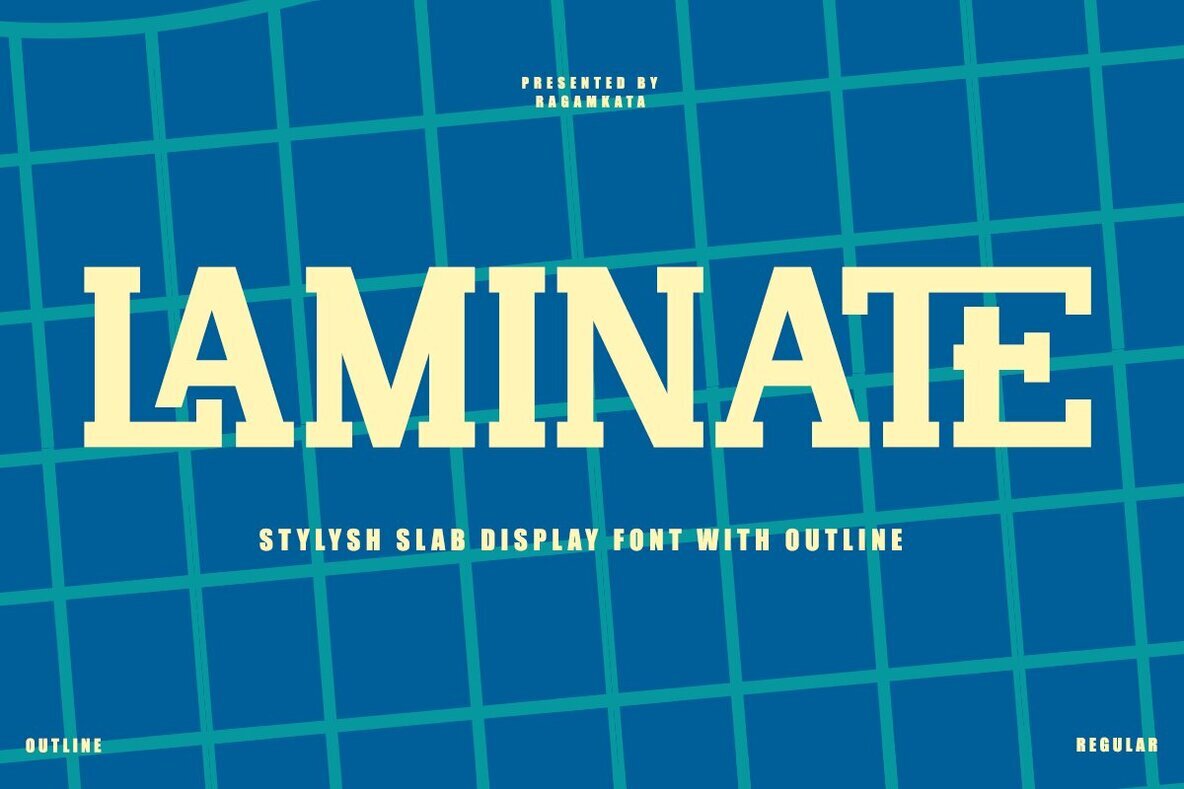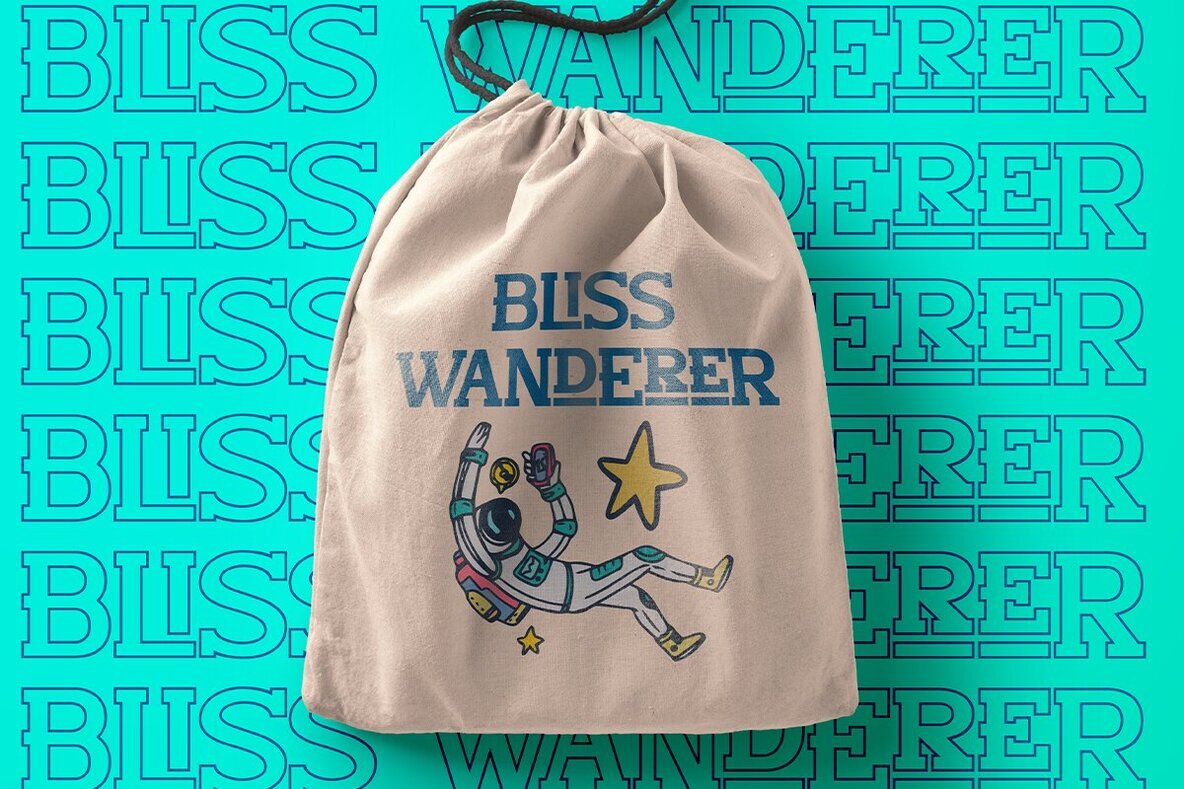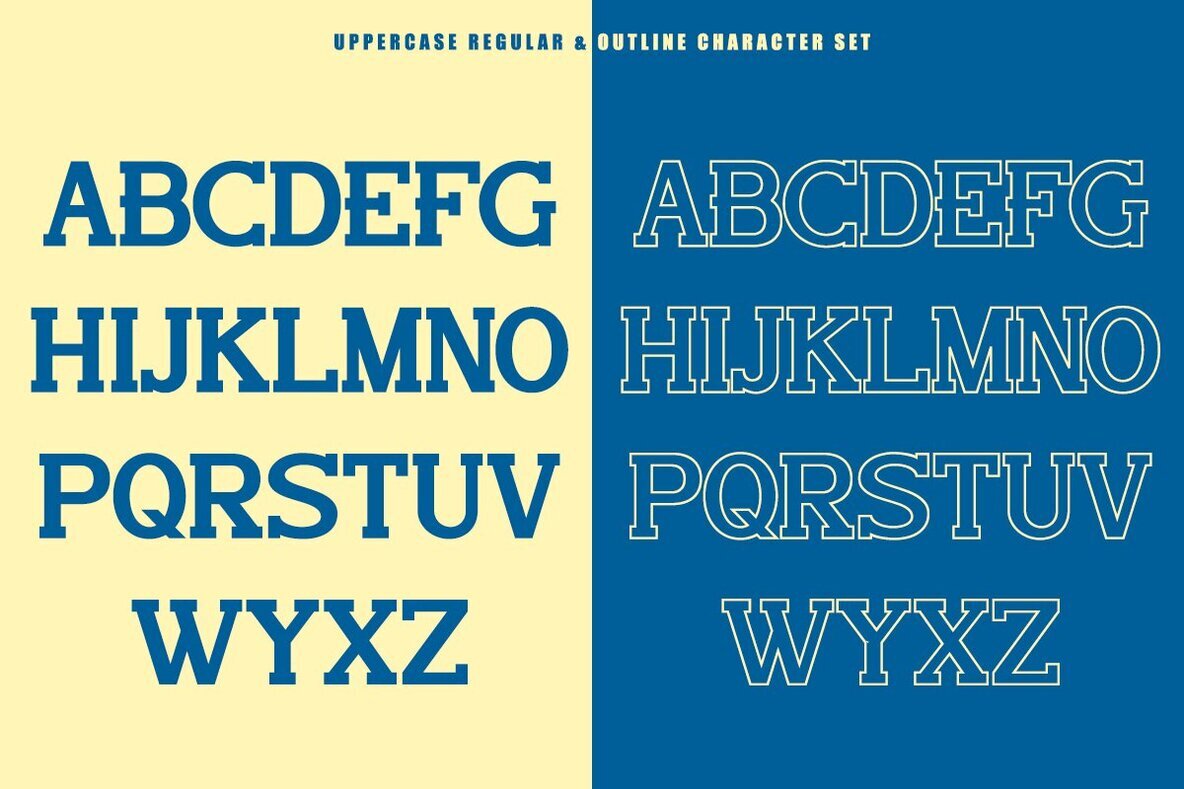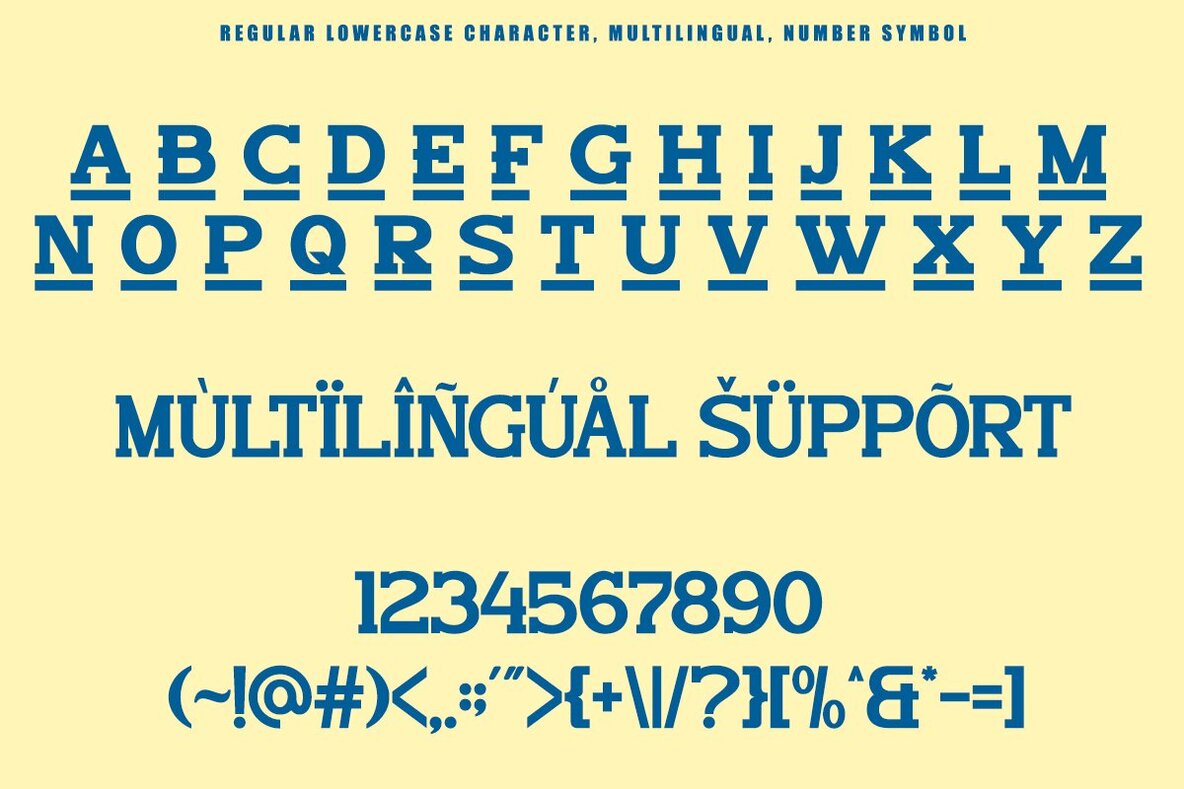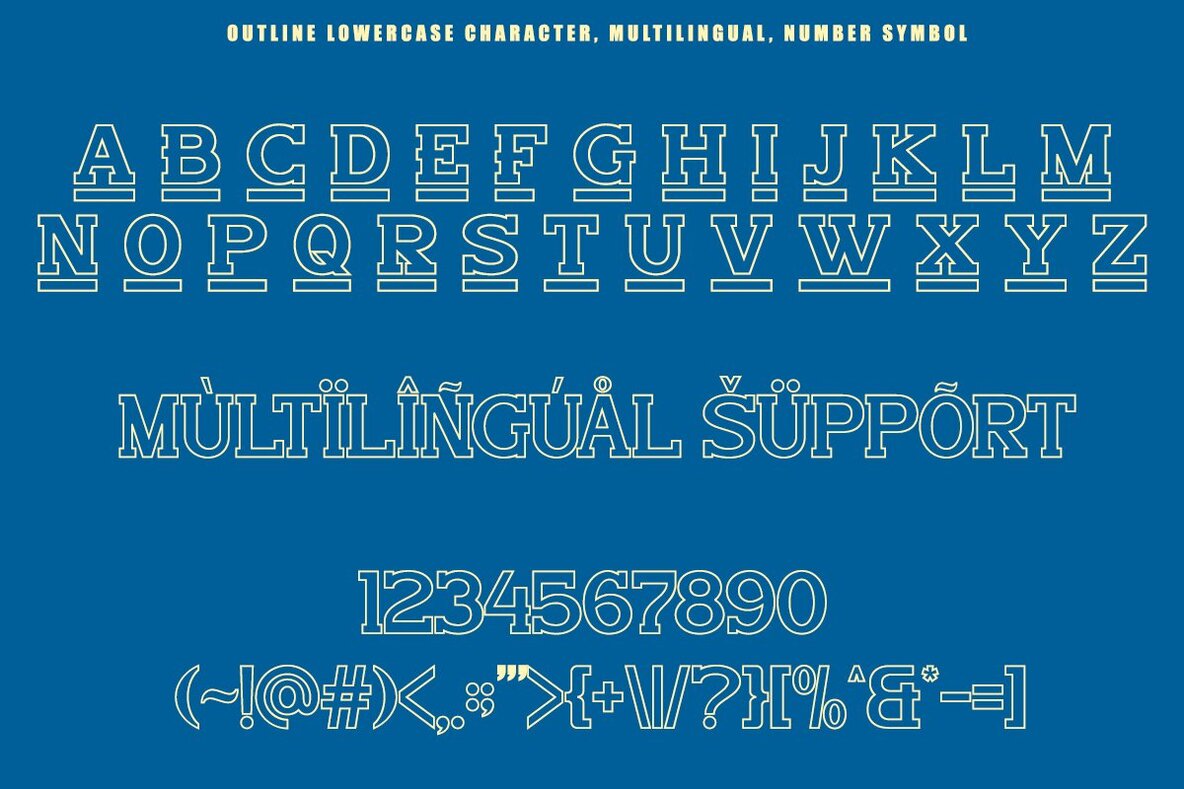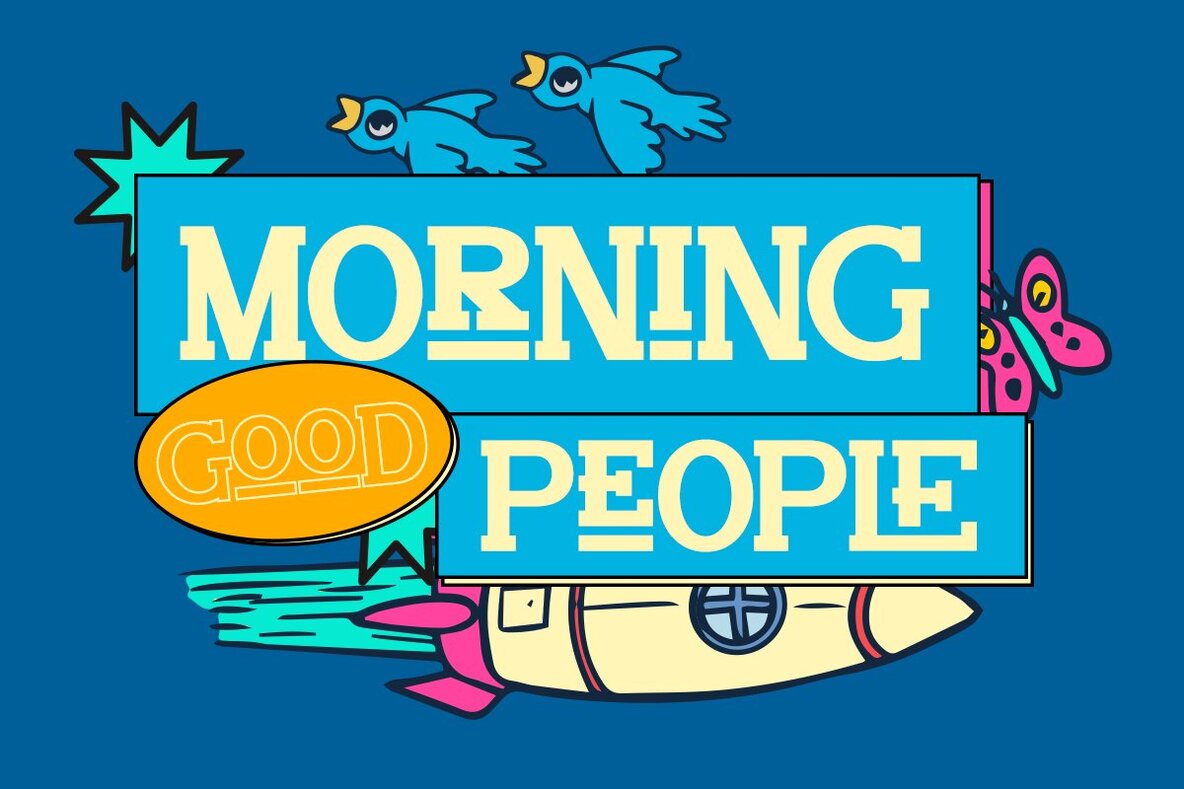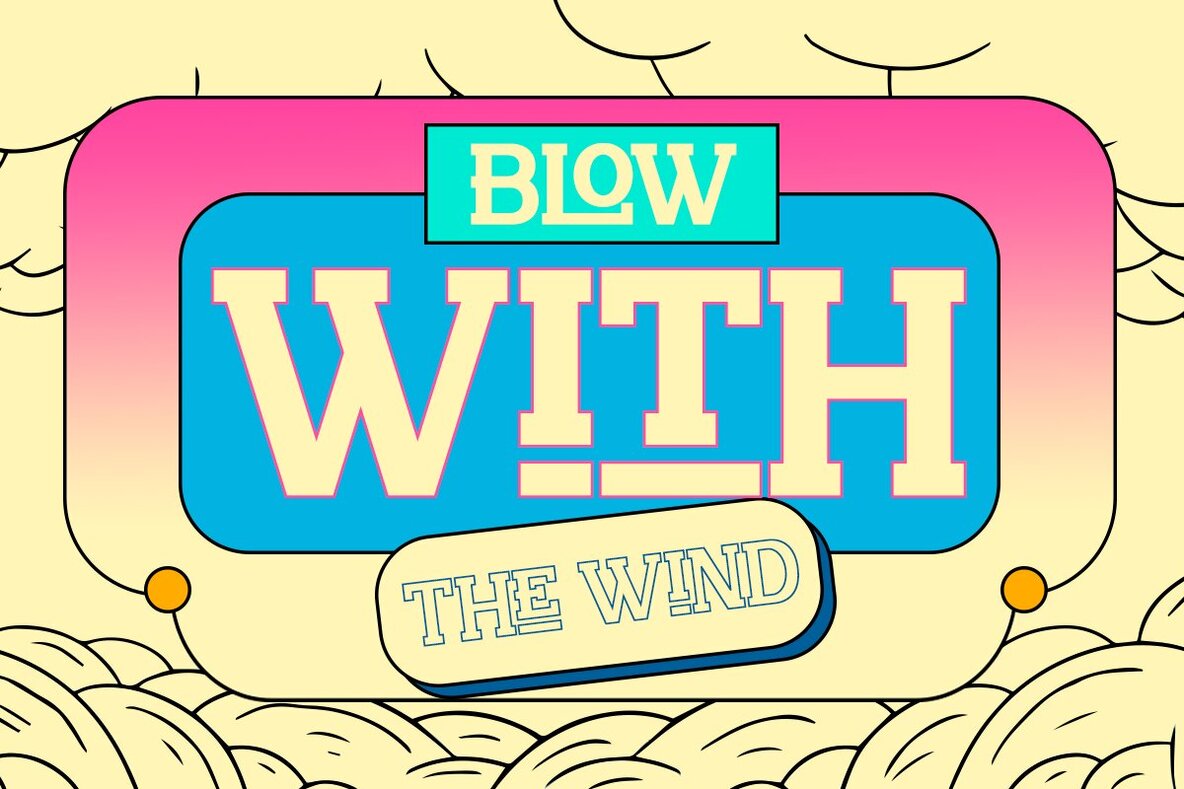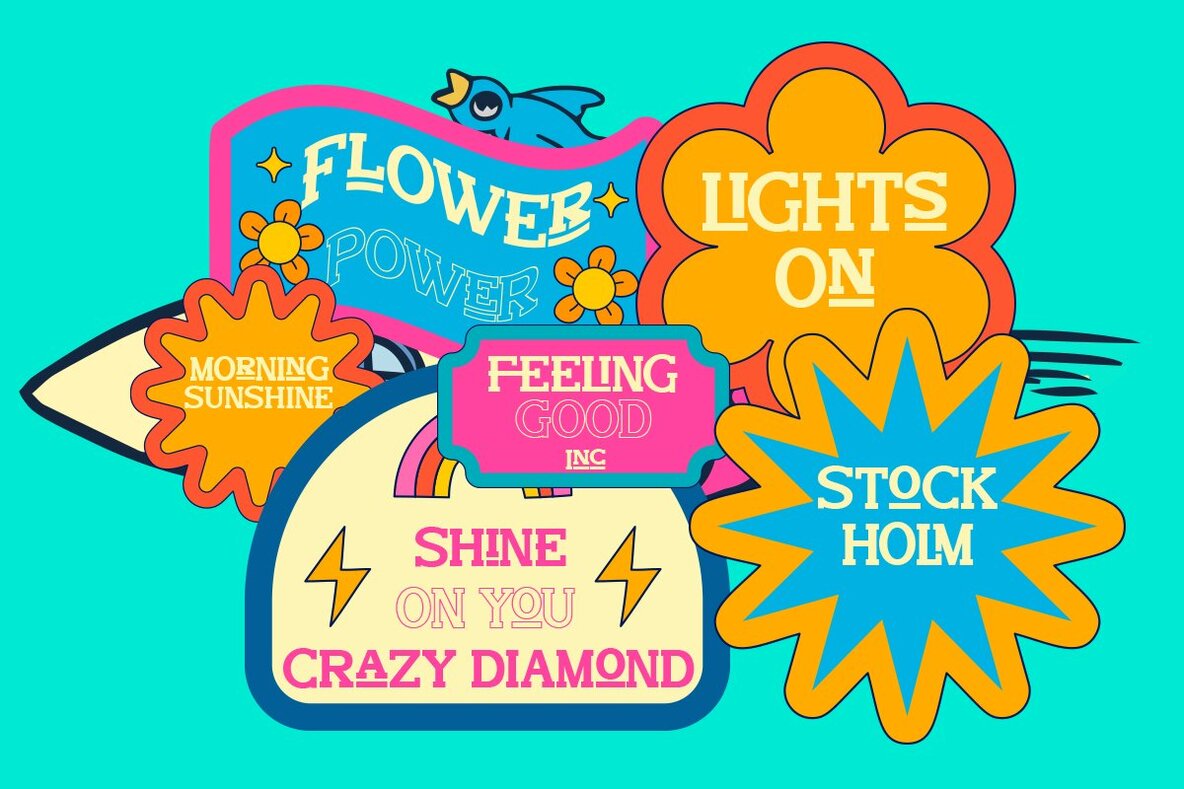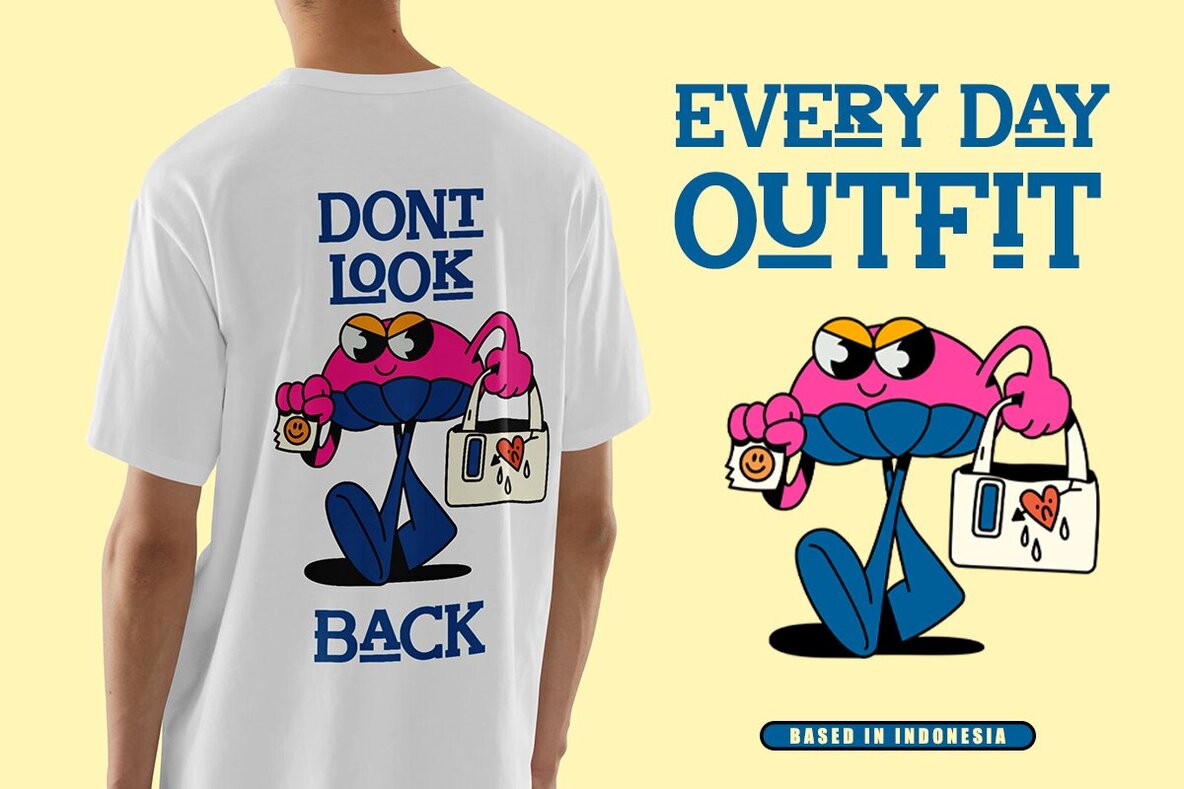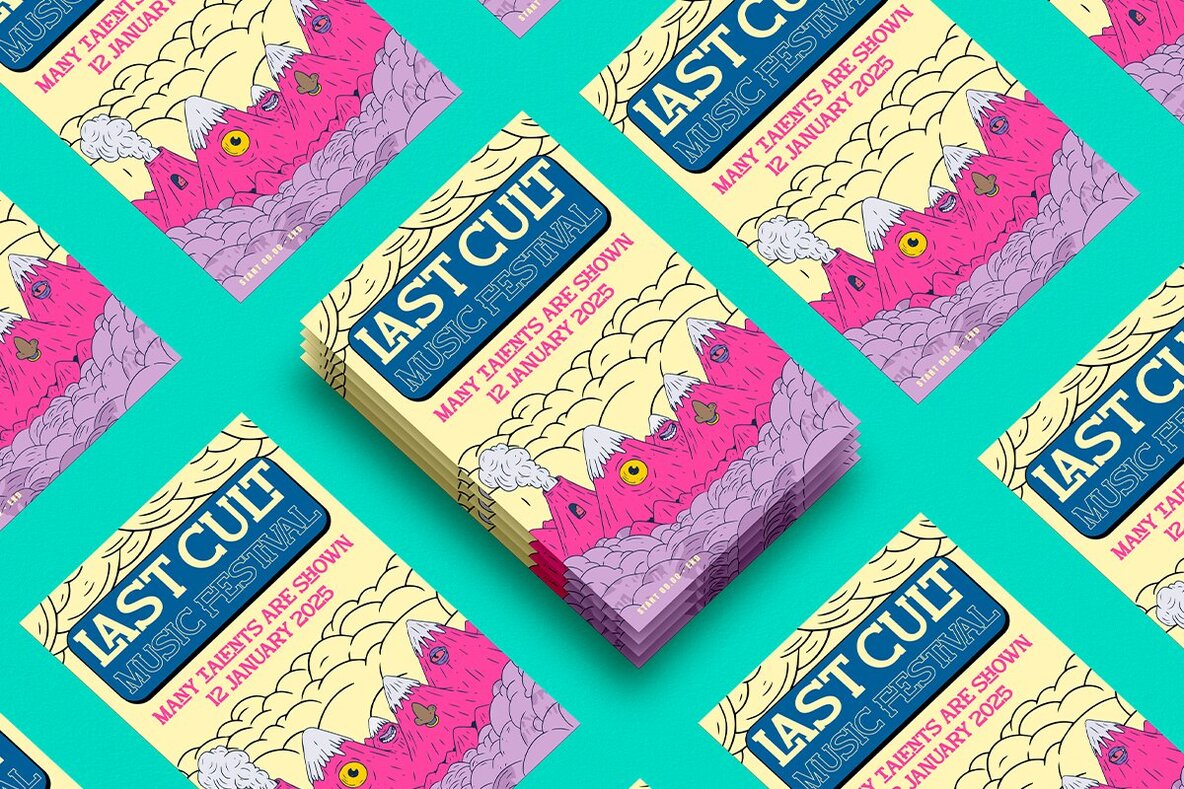
Laminate Font
Step back into the vibrant design landscape of the 80s and 90s with Laminate, a display font that captures the essence of pop style. Available in both Regular and Outline styles, Laminate provides flexibility and flair to any project. This font thrives in settings such as titles, design posters, logotypes, and more, accommodating a wide range of applications from merchandise to packaging. Laminate not only offers eye-catching aesthetics but also supports a variety of languages, making it a versatile choice for global projects.Laminate: A Bold Display Font from the Pop Era